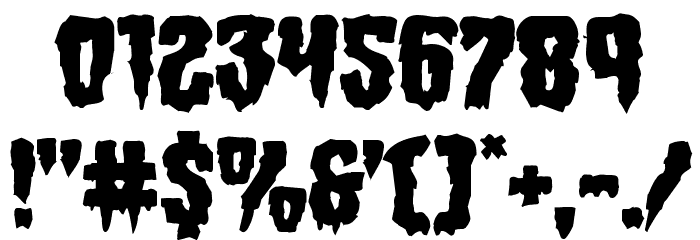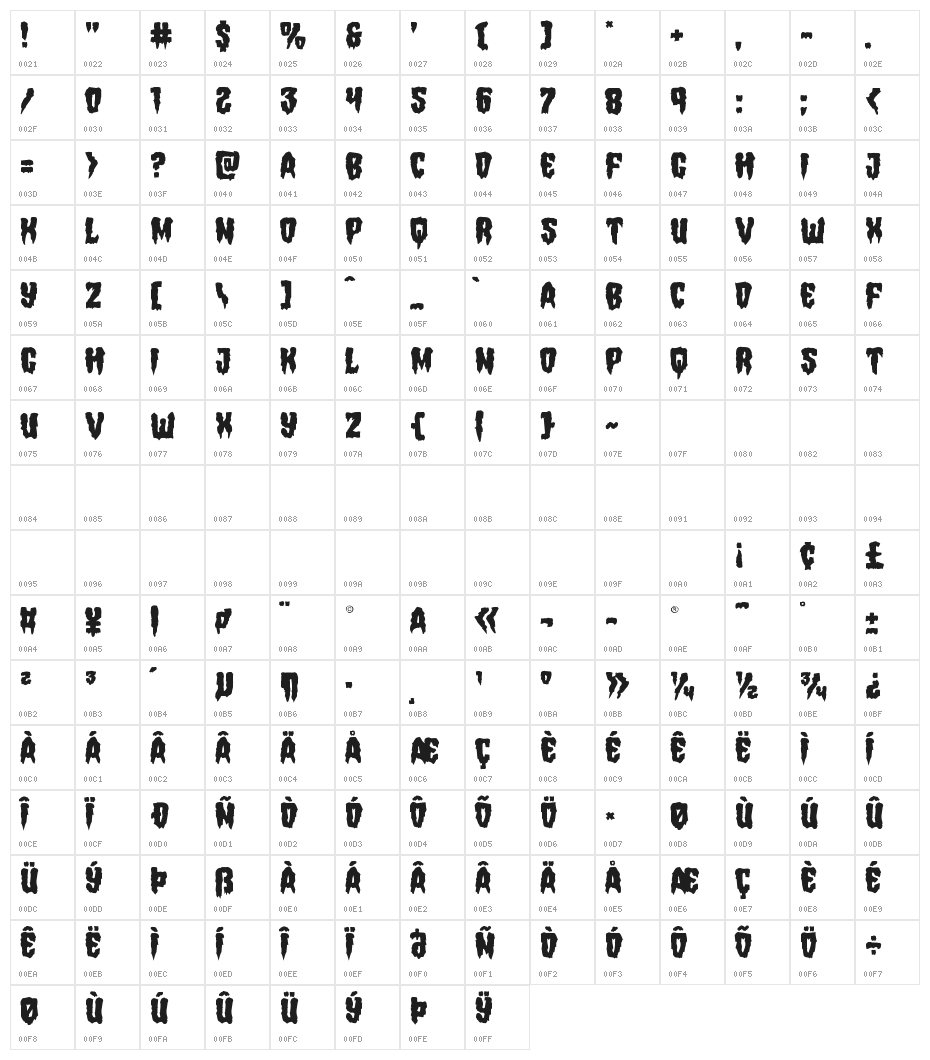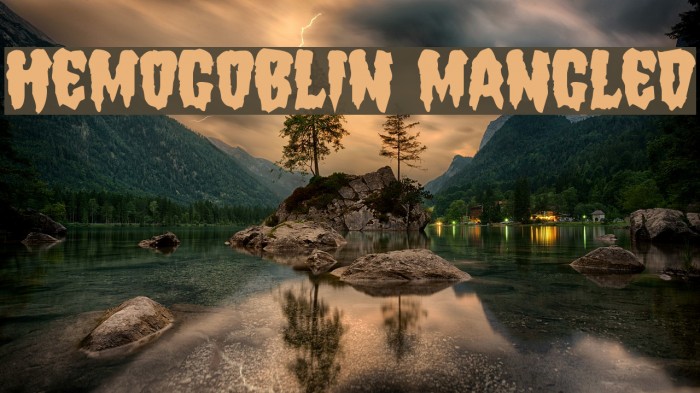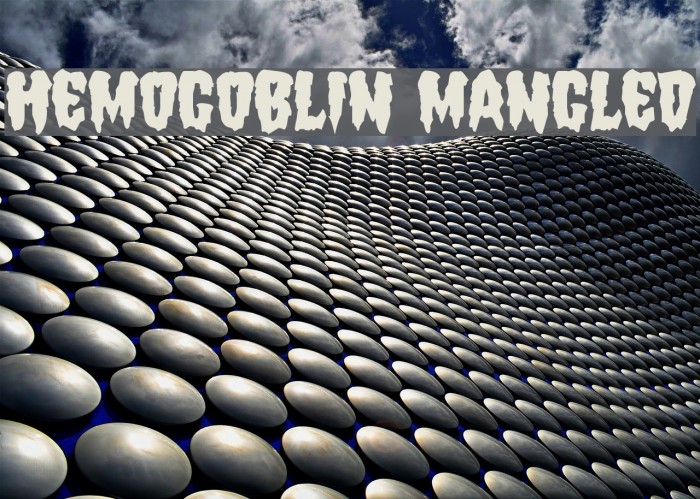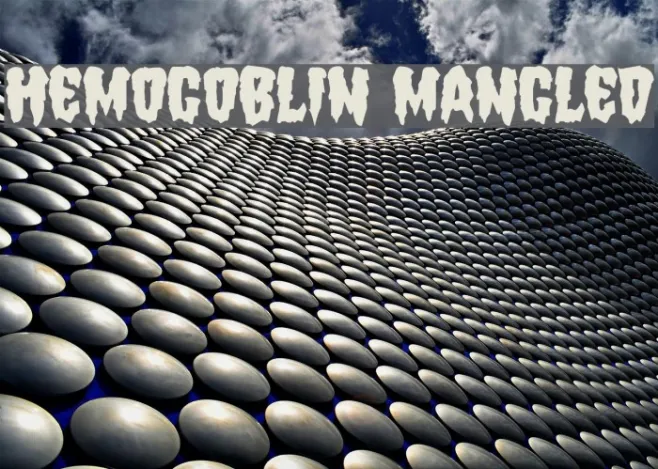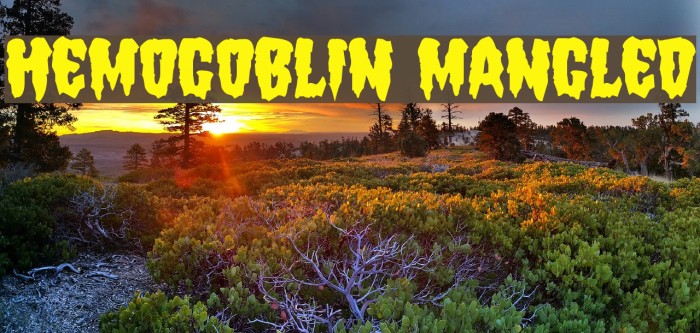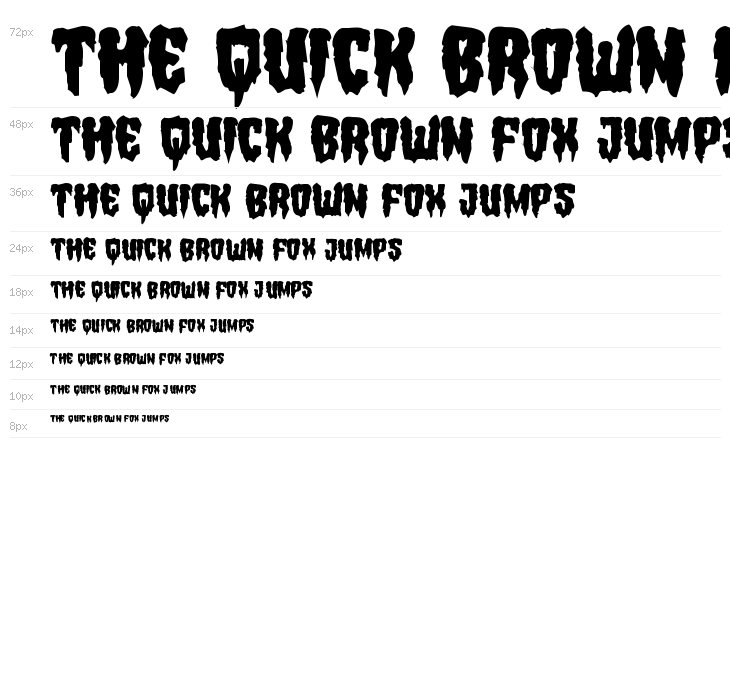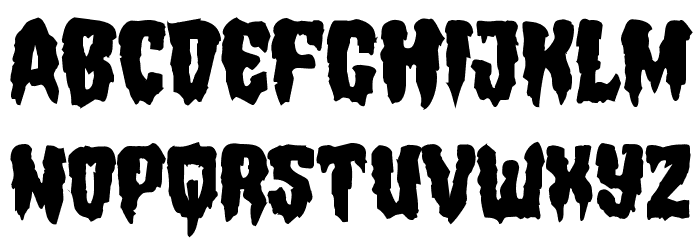
Hemogoblin Mangled Font
Hemogoblin Mangled Description
This font features a bold and jagged design, reminiscent of horror or Halloween themes. The characters have an irregular, distressed appearance, with uneven edges and a rough texture that gives it a mangled look. The uppercase and lowercase letters maintain a consistent style, with exaggerated, sharp angles and a heavy weight that makes them stand out. The numerals and special characters follow the same aesthetic, ensuring a cohesive look across all glyphs. This font is ideal for creating a spooky or eerie atmosphere in design projects.